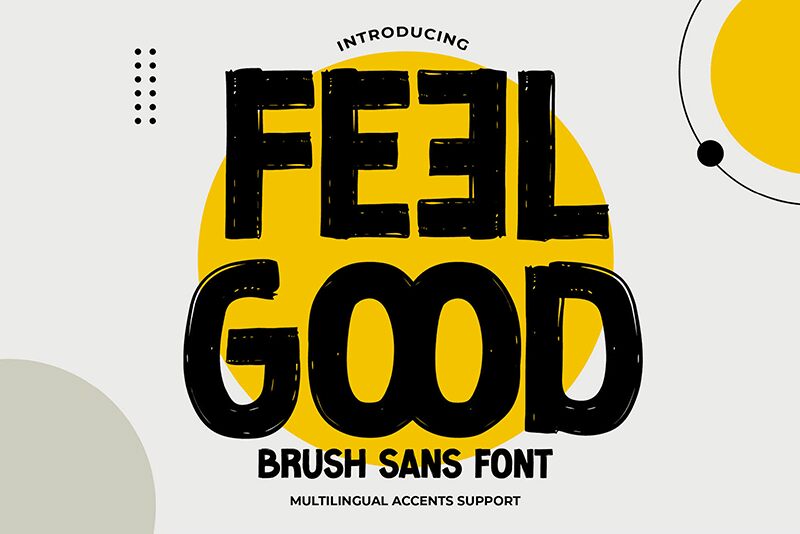
Feel Good
Discover Feel Good, the vivacious brush sans font designed by Gassstype that's set to elevate your creative projects. With its bold weight and free-spirited flair, Feel Good captures the essence of handcrafted artistry while maintaining the readability of sans serif design.
Its dynamic strokes and playful character make it a perfect fit for branding, dynamic web headers, and eye-catching advertising campaigns. This font's versatility shines across digital platforms and print, infusing each design with a sense of optimism and energy that truly lives up to its name.
Embrace the unique charm of Feel Good and let your designs stand out with a touch of personalized exuberance.